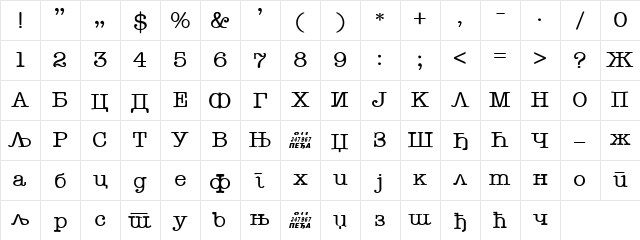
C_Memorandum Normal Free Font
C_Memorandum Normal
C_Memorandum Family
C_Memorandum Normal
Complete C_Memorandum Normal glyph index. Displaying only characters natively supported by C_Memorandum Normal font.
Design Context for C_Memorandum
C_Memorandum is a composed and adaptable typeface that performs quietly and consistently across a wide range of design contexts.
Pro Tip: Use C_Memorandum in both headline and body roles to test its range before committing to a single application.